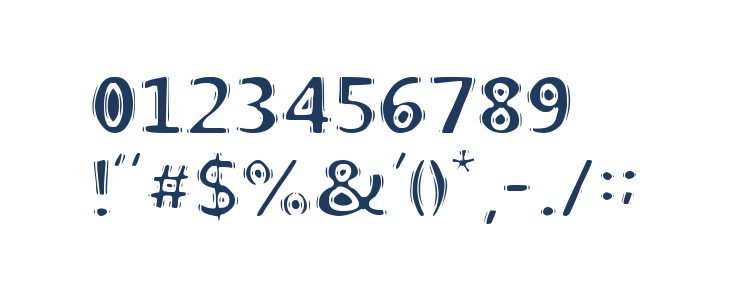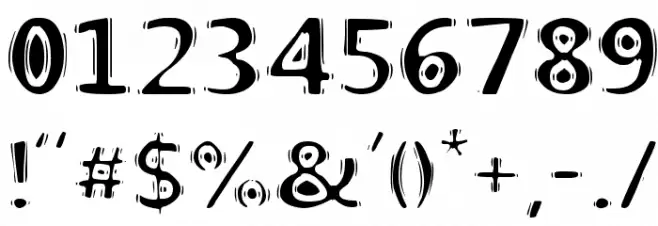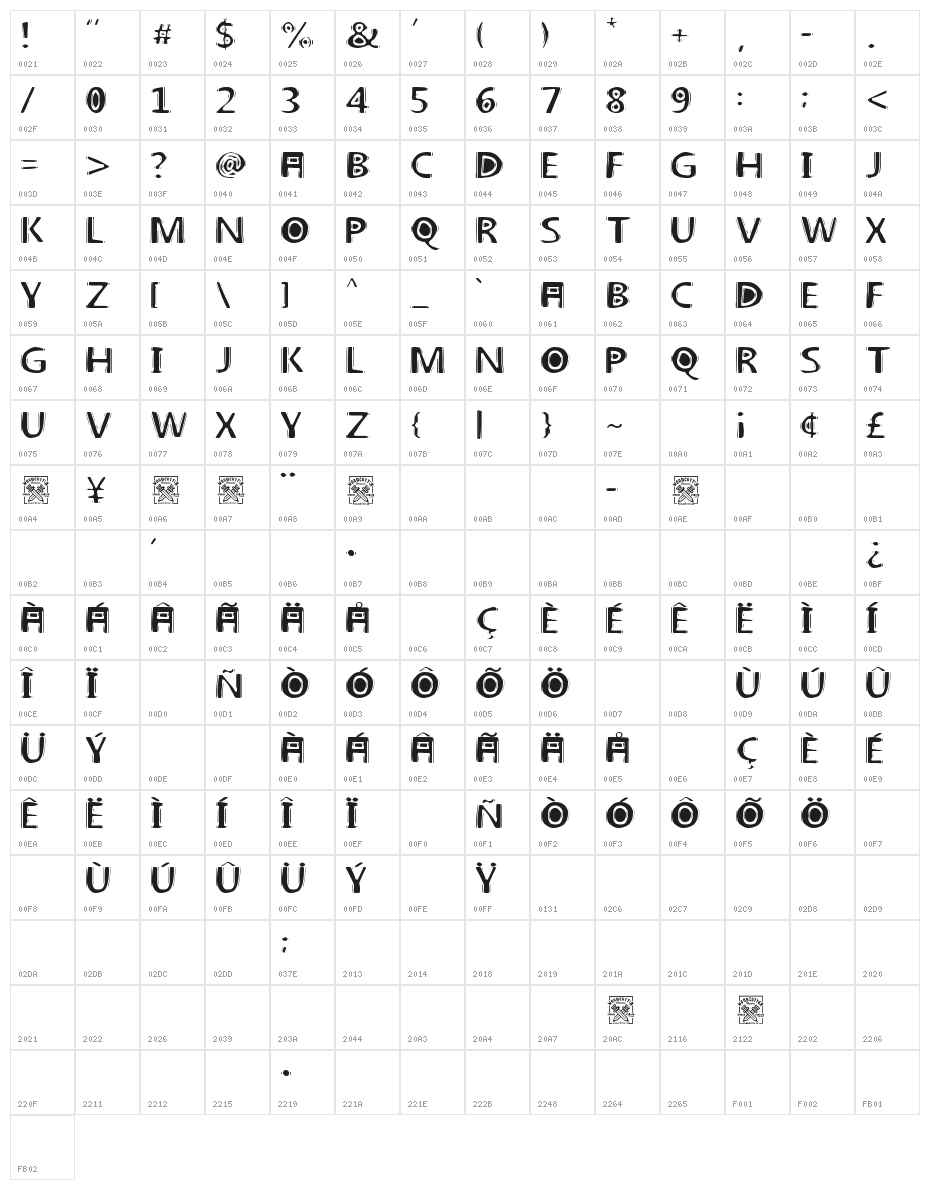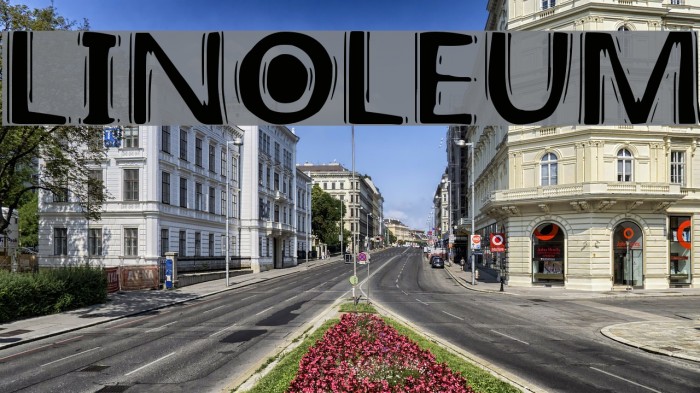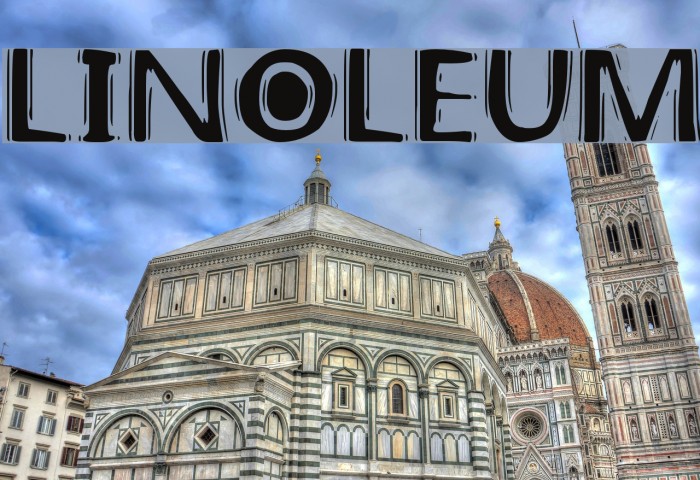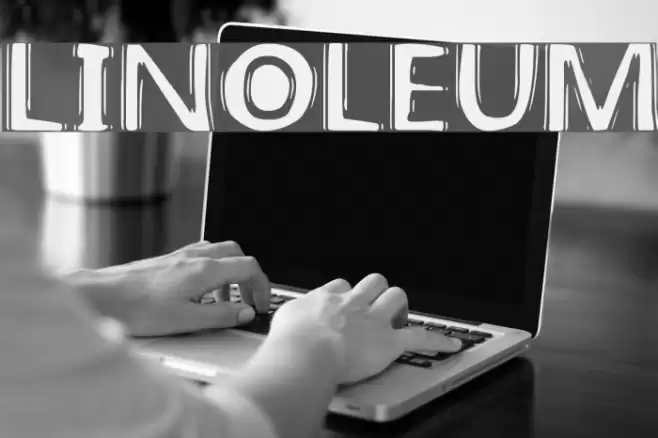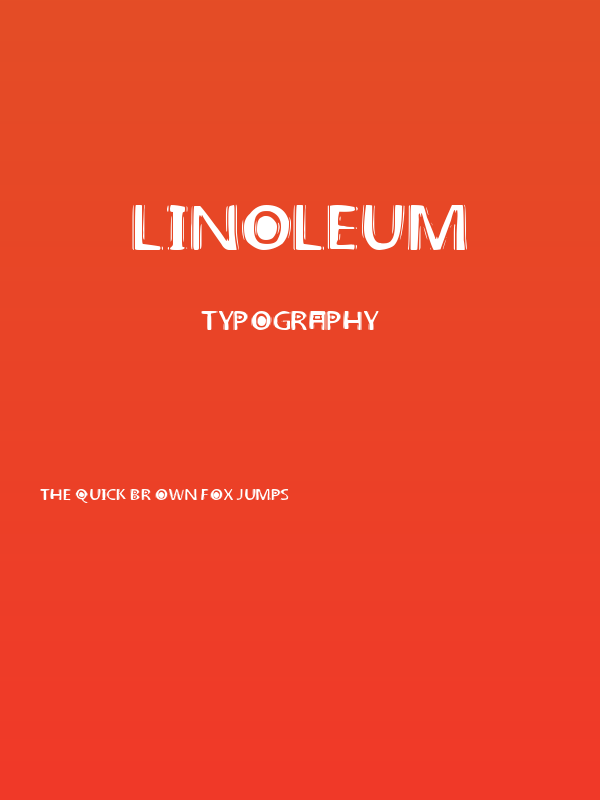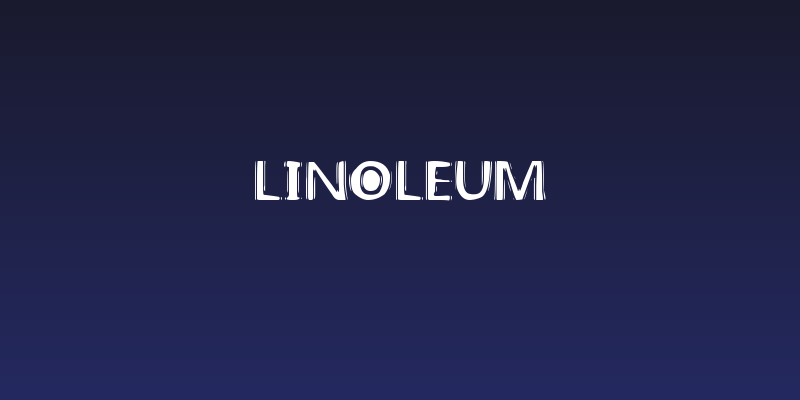
linoleum Font
linoleum Description
This font features a bold and dynamic style with a playful, artistic flair. The characters are designed with a unique, hand-drawn appearance, incorporating irregular strokes and varying thicknesses that give it a lively and energetic feel. The uppercase and lowercase letters maintain a consistent style, while the numbers and special characters complement the overall design. The font's distinctiveness is highlighted by its creative use of negative space, adding to its visual interest and making it suitable for eye-catching designs.
| Overall Style | Artistic, Playful |
| Proposed Projects | Ideal for posters, creative branding, children's books, and artistic projects. |